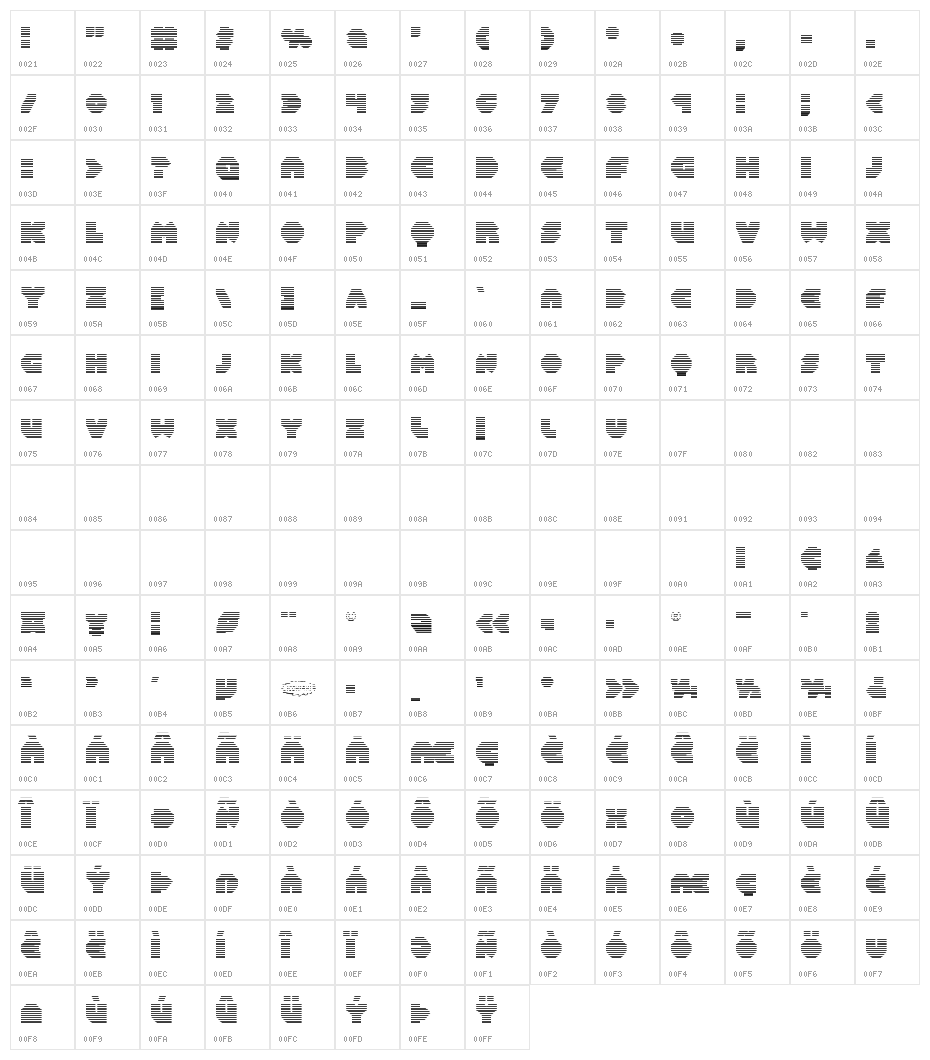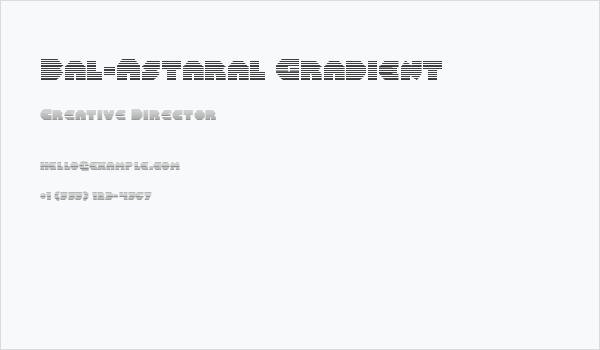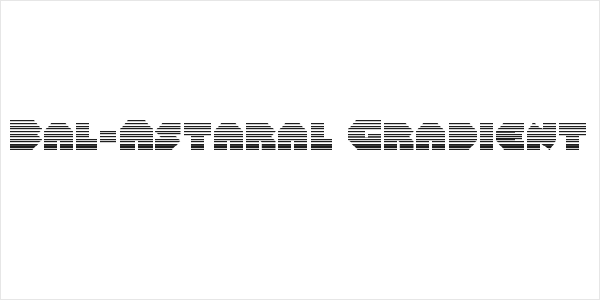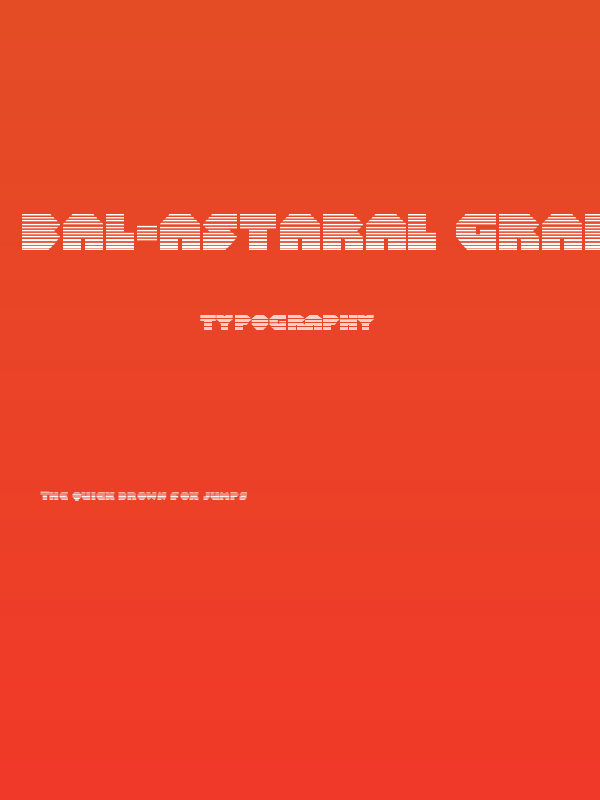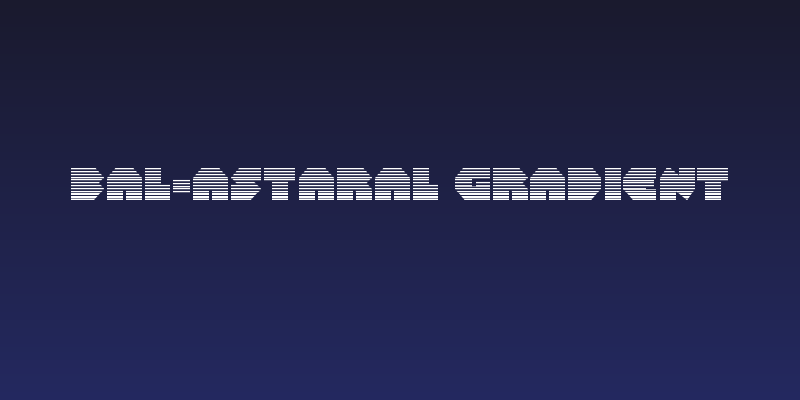
Bal-Astaral Gradient Font
Bal-Astaral Gradient Description
This font features a unique, striped pattern that creates a gradient effect across each character. The design is bold and eye-catching, with each letter and number composed of horizontal lines that vary in thickness, giving a sense of movement and depth. The font is highly decorative, making it ideal for projects that require a striking visual impact. Its geometric structure and consistent line work provide a modern and futuristic feel, while the boldness of the characters ensures readability even at smaller sizes. The special characters maintain the same striped aesthetic, ensuring uniformity across all glyphs.
Proposed ProjectsIdeal for posters, album covers, branding, and any project needing a bold, modern aesthetic.